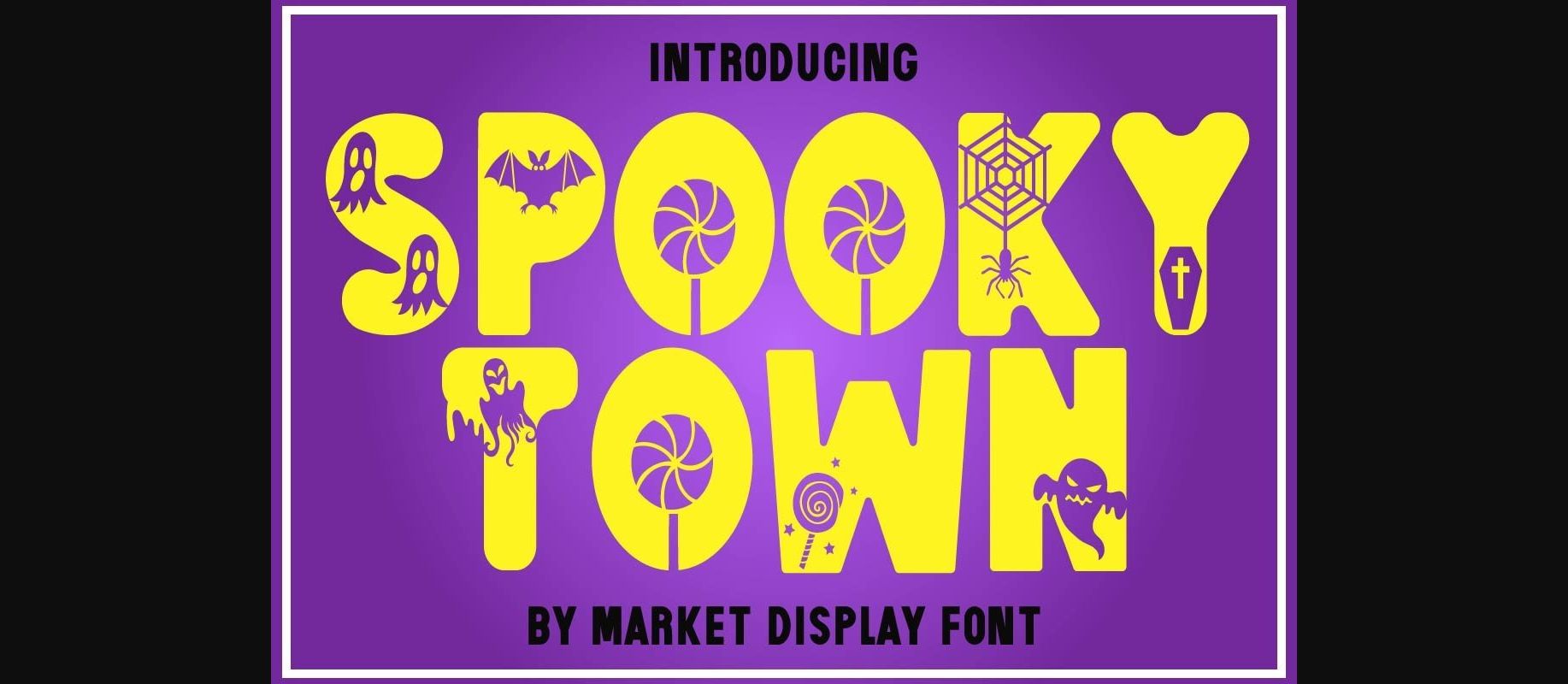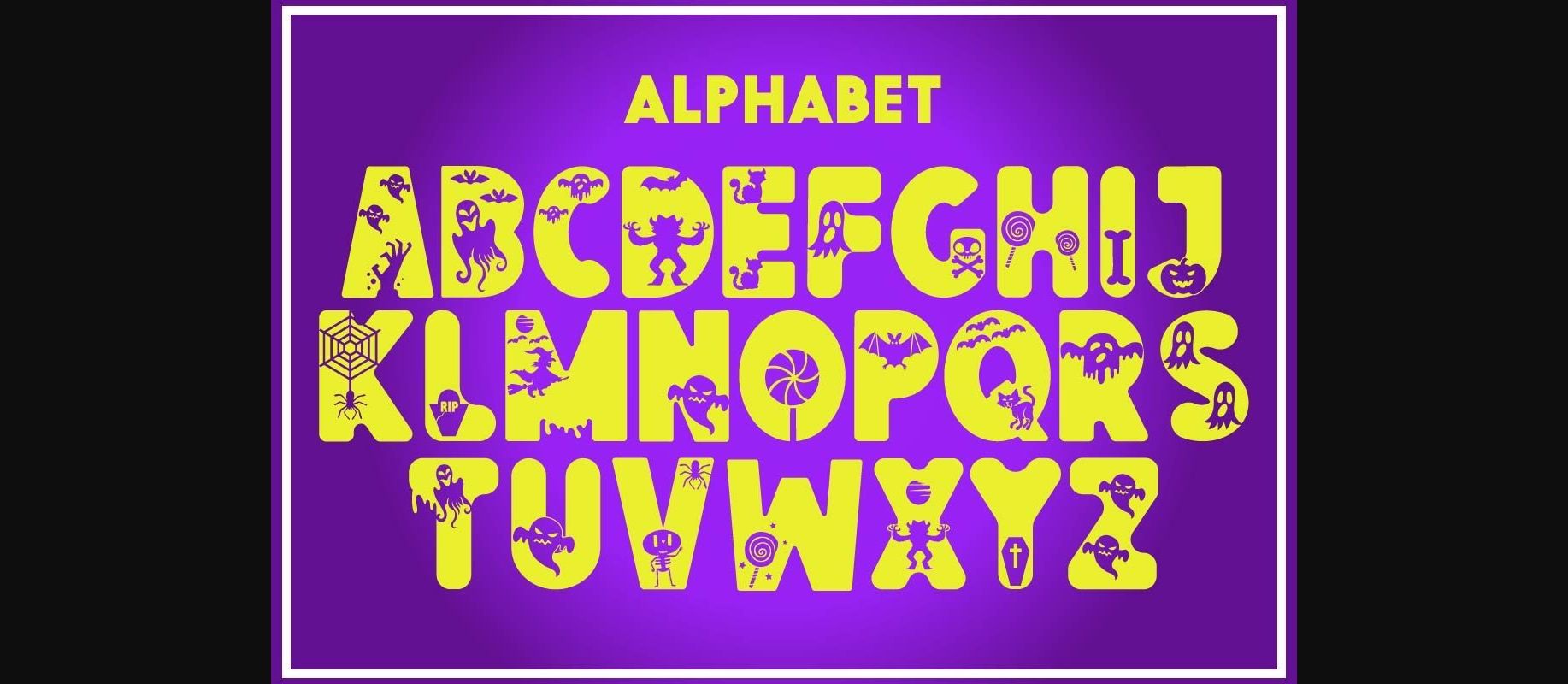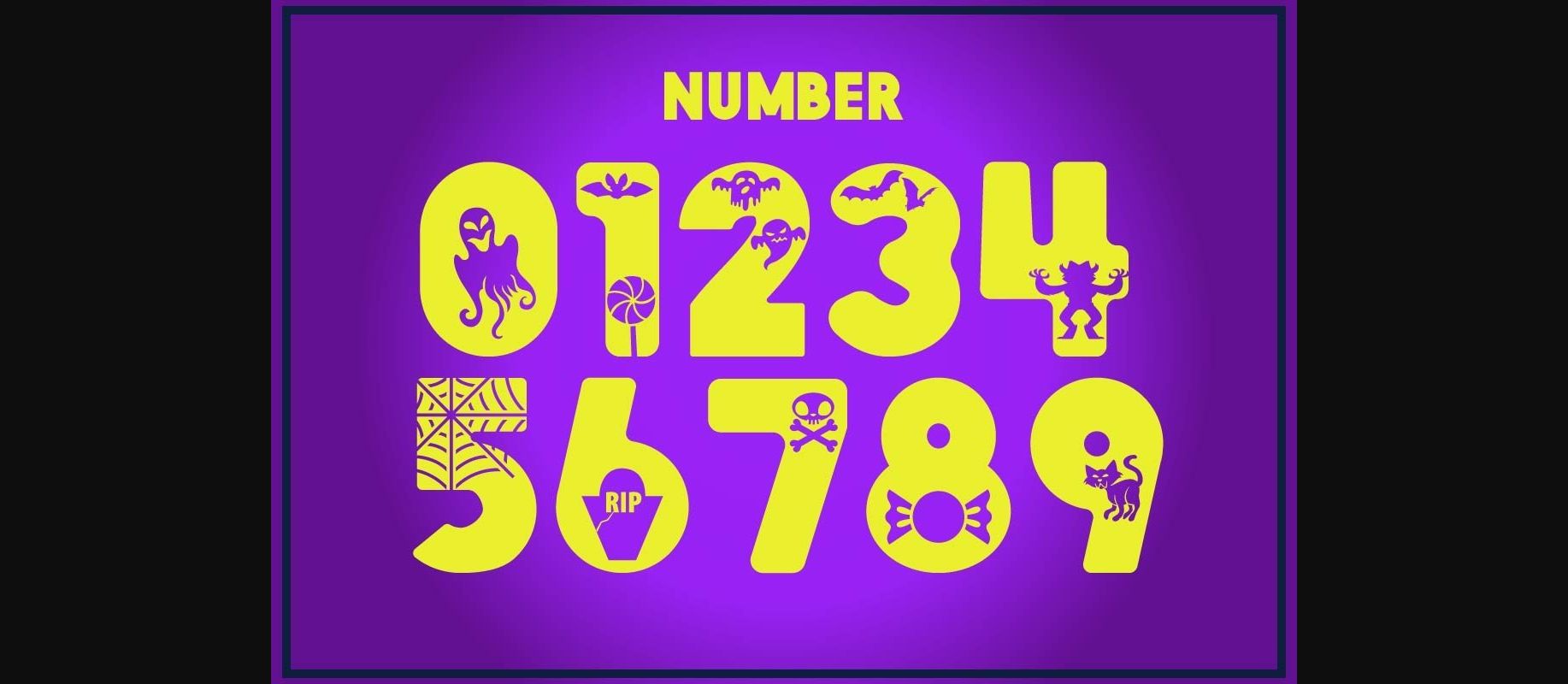
Spooky Town Font
About Spooky Town Font
Spooky Town is an incredibly unique decorative font, featuring monsters and ghosts as ornaments. Distinct and quirky, this font will elevate each of your Halloween-themed ideas!